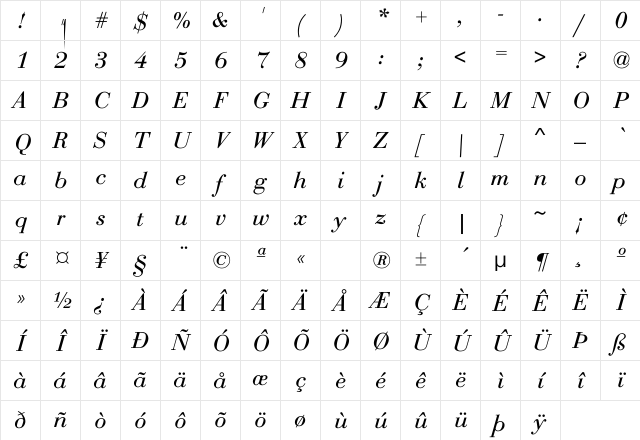
Narragansette Head Ital Regular
Complete Narragansette Head Ital Regular glyph index. Displaying only characters natively supported by Narragansette Head Ital Regular font.
Design Context for Narragansette Head Ital
Narragansette Head Ital is a composed and adaptable typeface that performs quietly and consistently across a wide range of design contexts.